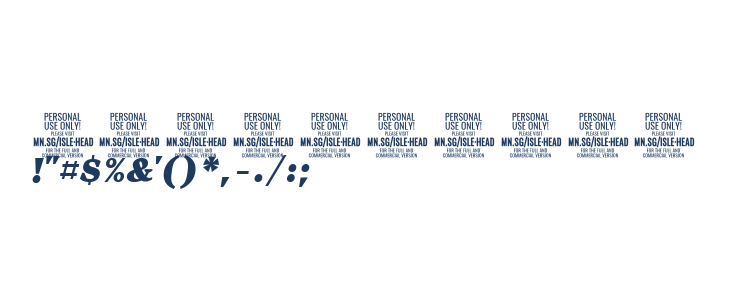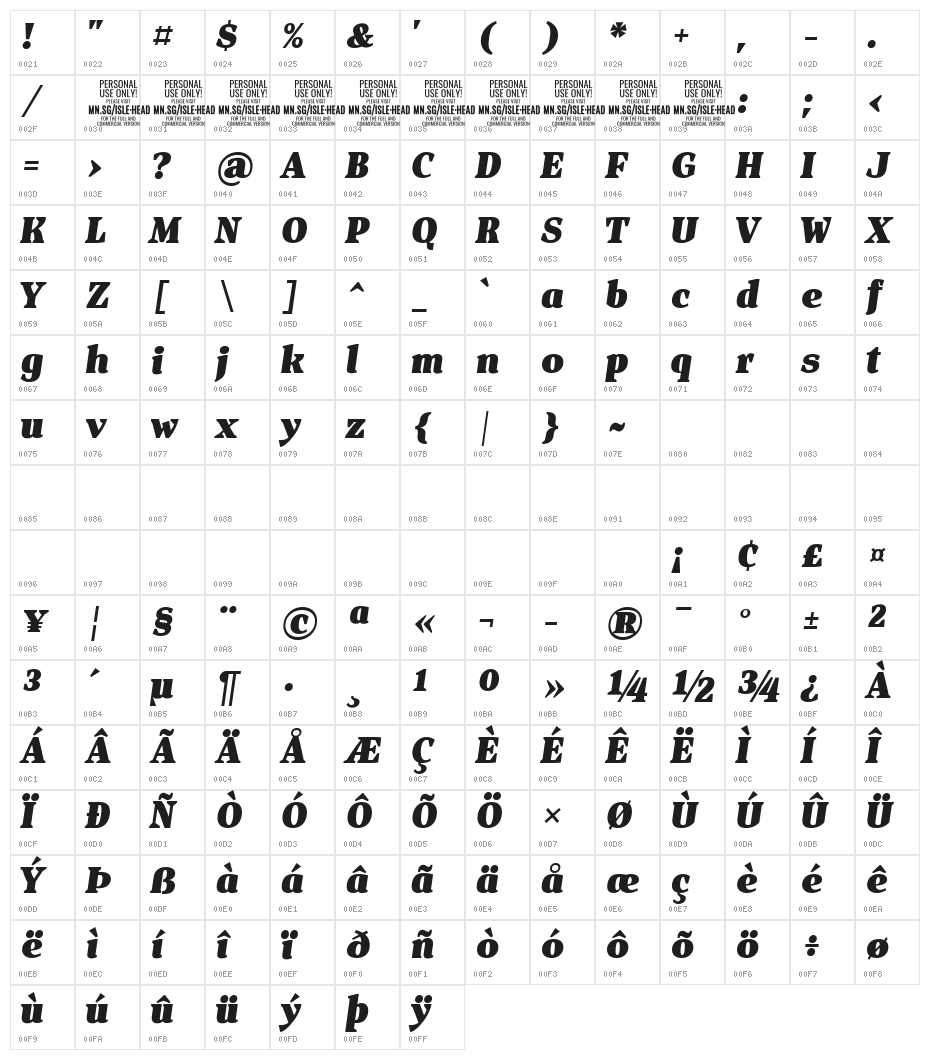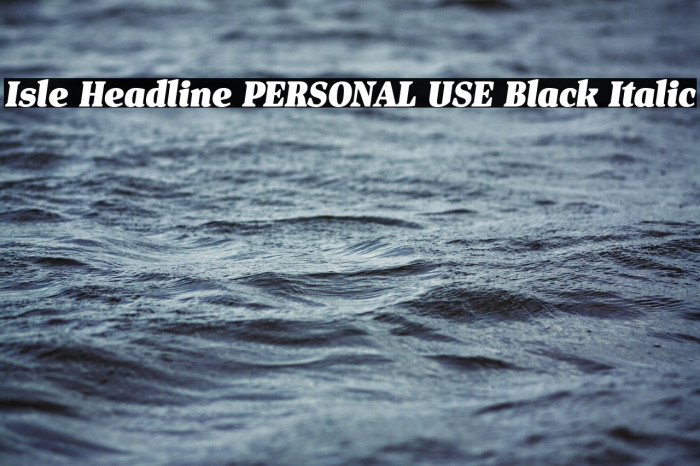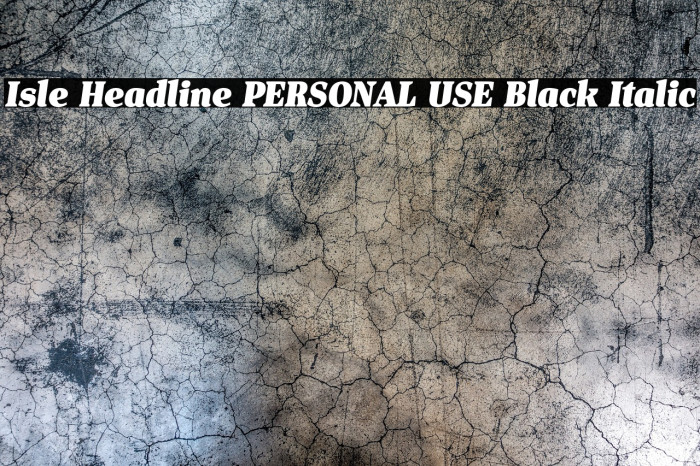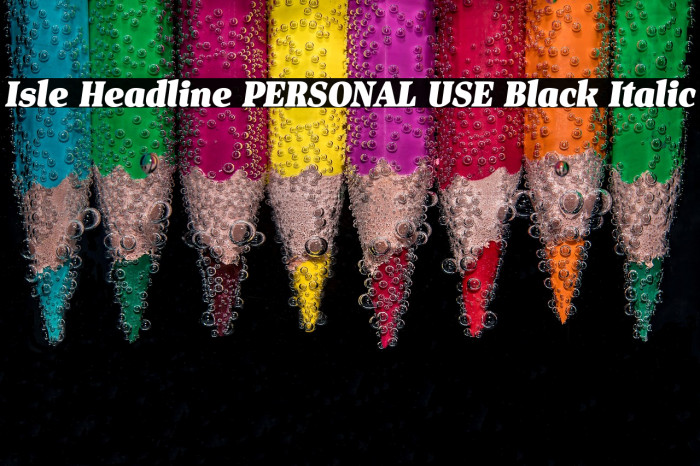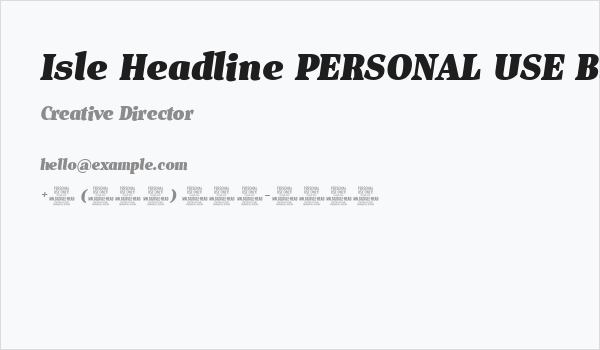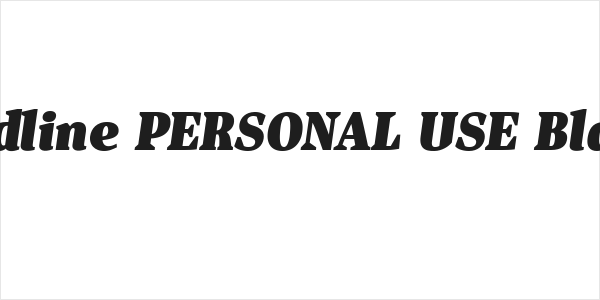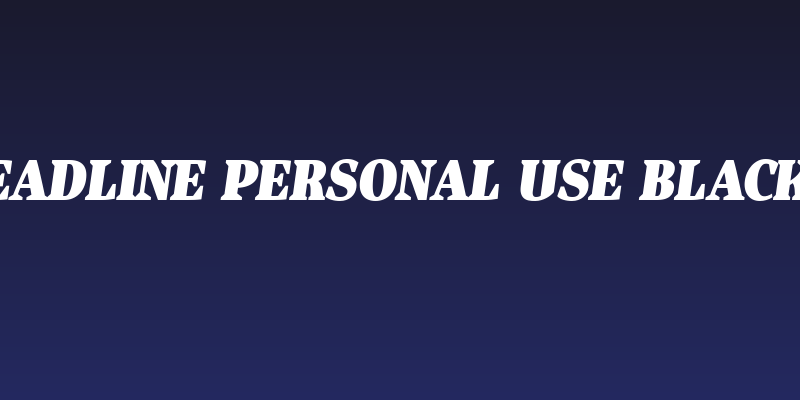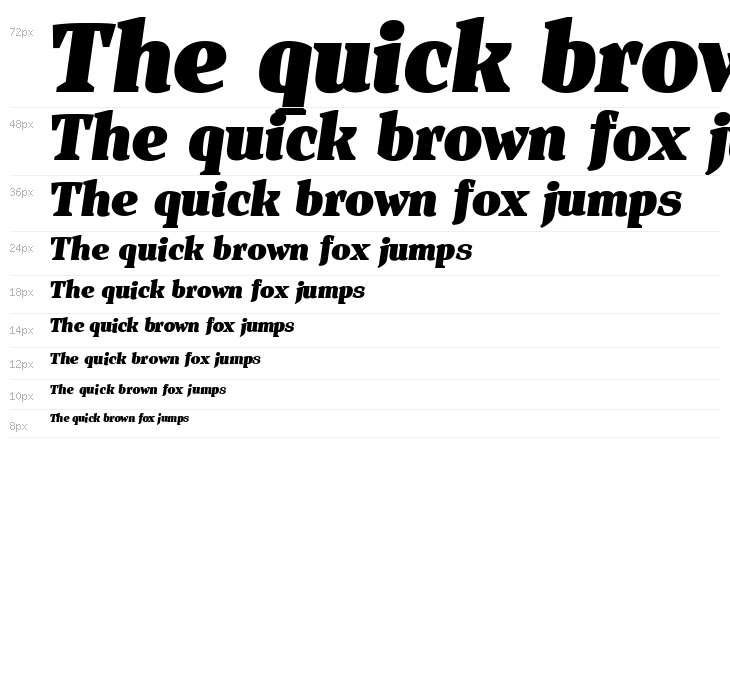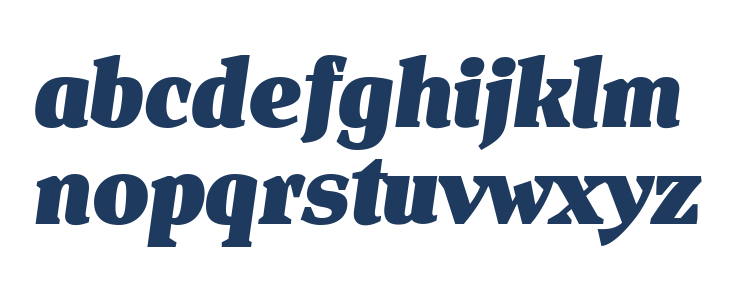
Isle Headline PERSONAL USE Black Italic Font
Isle Headline PERSONAL USE Black Italic Description
This font exhibits a bold and dynamic style with a strong presence. The characters are italicized, adding a sense of movement and flair. The uppercase letters are robust and commanding, while the lowercase letters maintain a consistent flow. The numerals and special characters are designed to match the overall bold aesthetic, ensuring uniformity across all text elements. The strokes are thick, providing a high contrast that enhances readability and impact. This font is ideal for making statements and capturing attention.